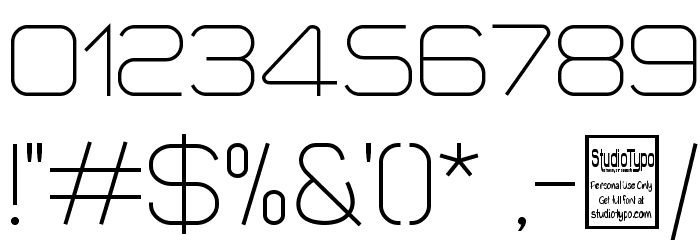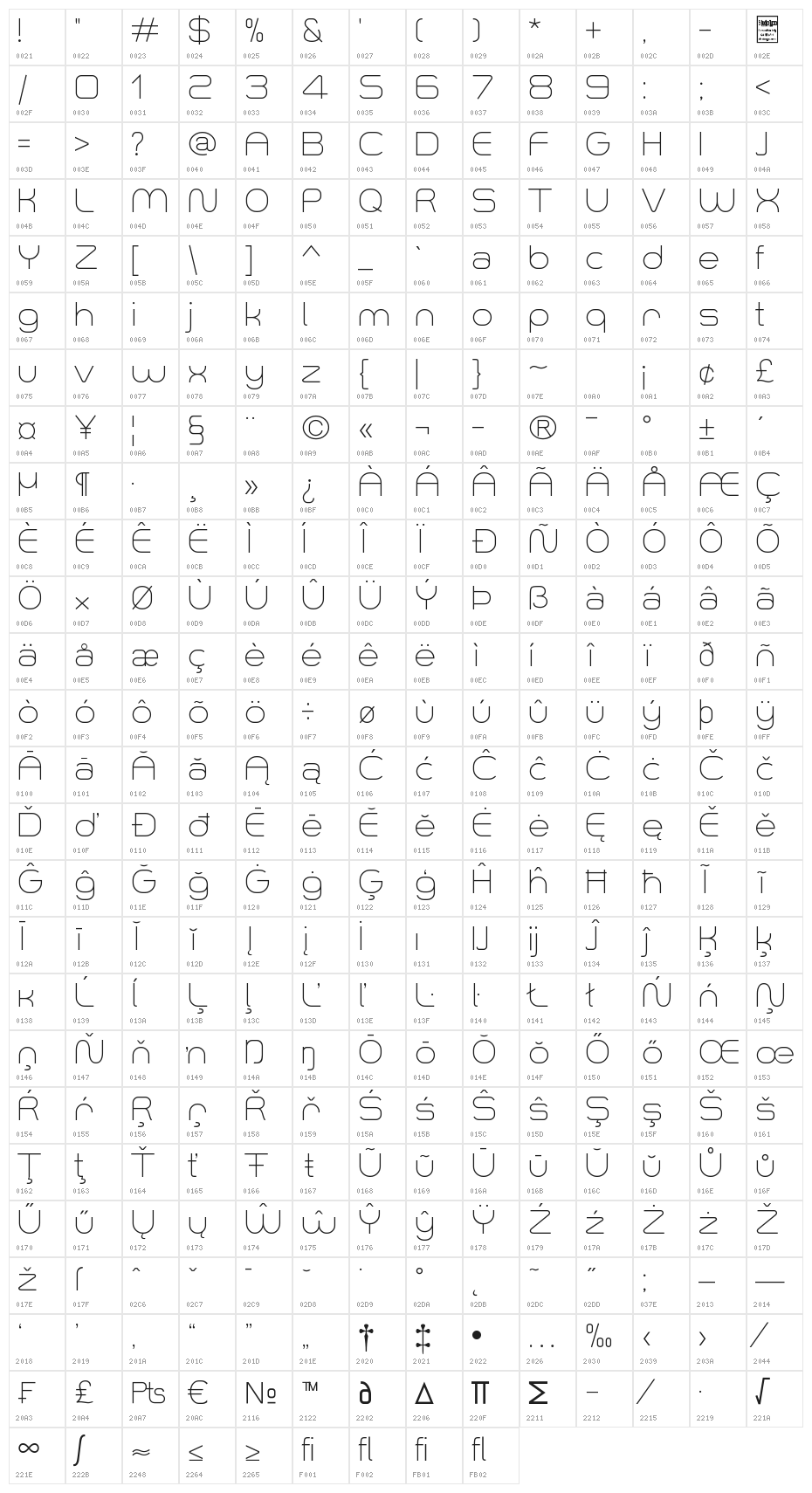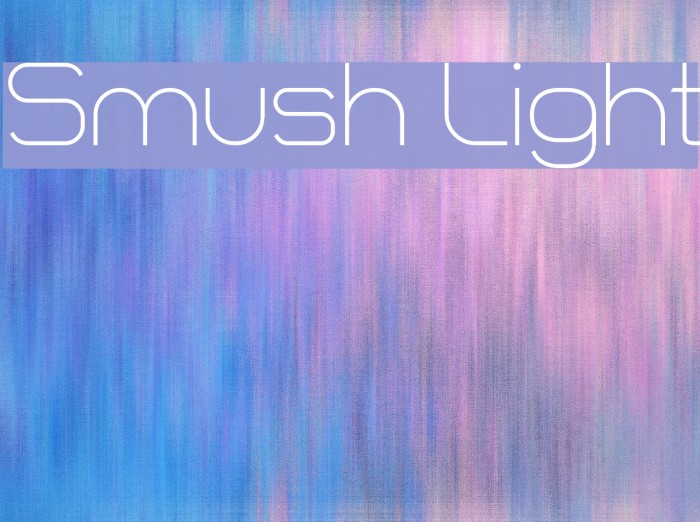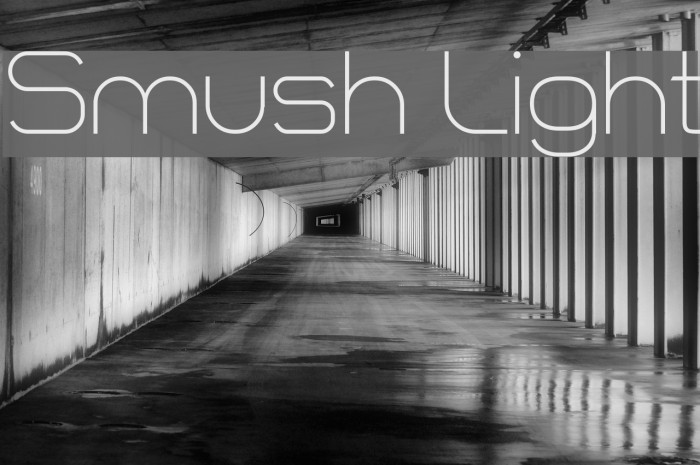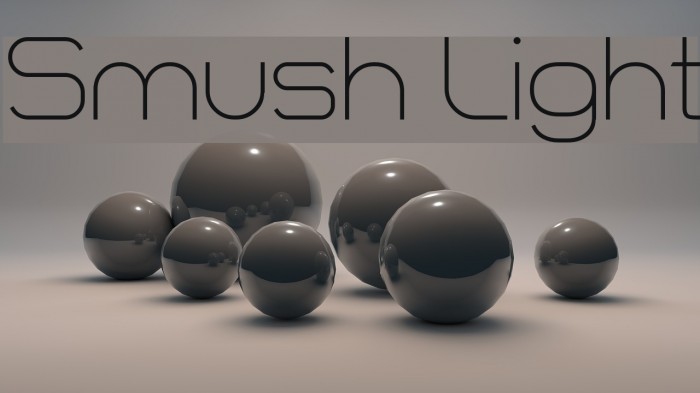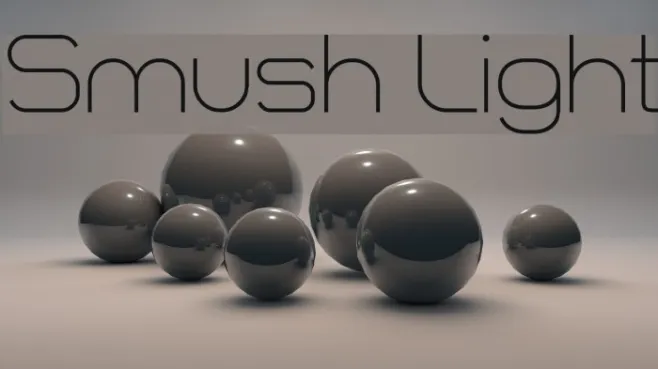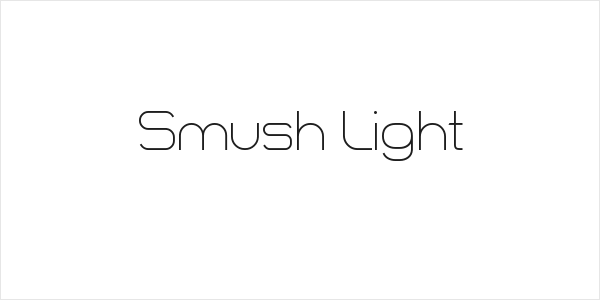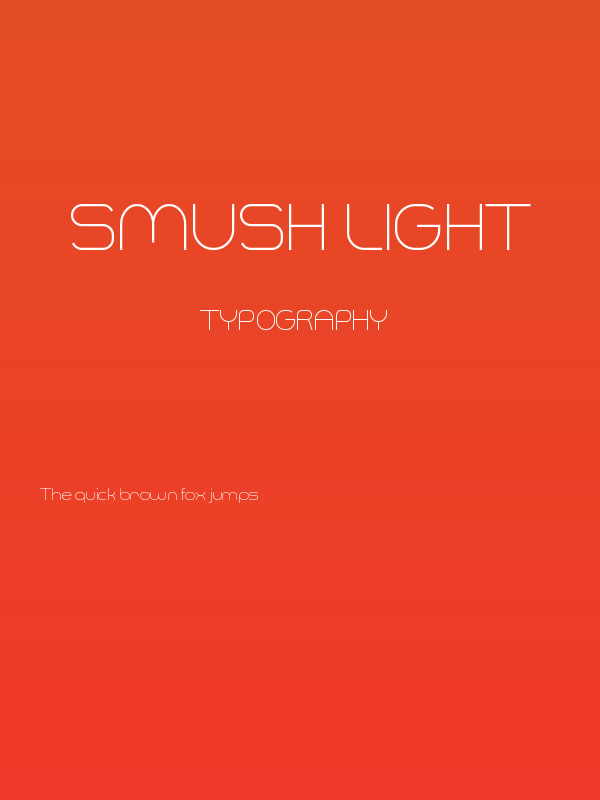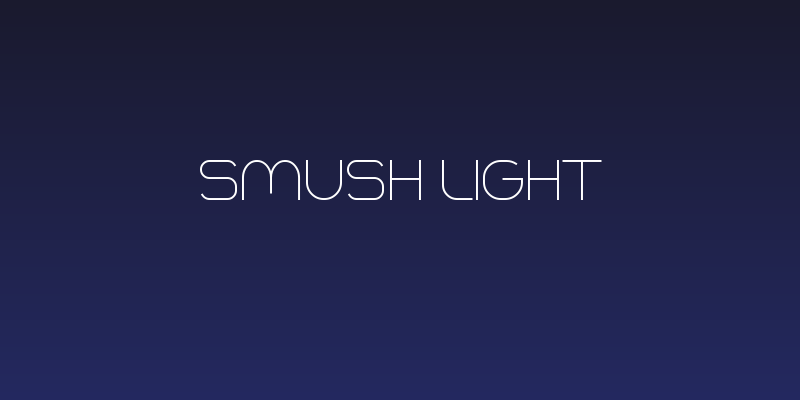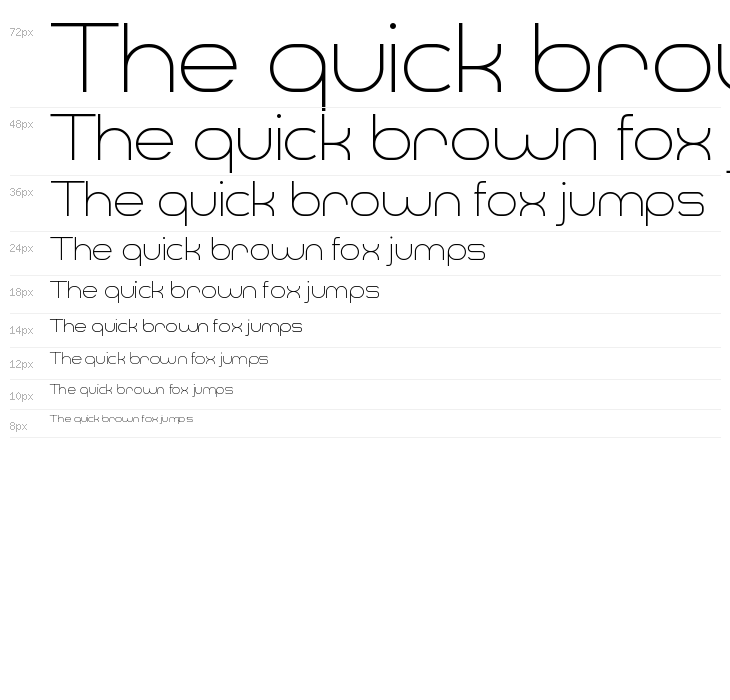
Smush Light Font
Smush Light Description
This font features a sleek, modern design with a geometric and minimalist aesthetic. The characters are composed of thin, uniform lines that create a clean and airy appearance. The uppercase and lowercase letters maintain a consistent style, with rounded edges and open counters that enhance readability. The numerals and special characters follow the same design principles, ensuring a cohesive look across all elements. This font's simplicity and elegance make it suitable for contemporary design projects.
| Proposed Projects | Ideal for tech branding, minimalist posters, modern web design, and sleek product packaging. |